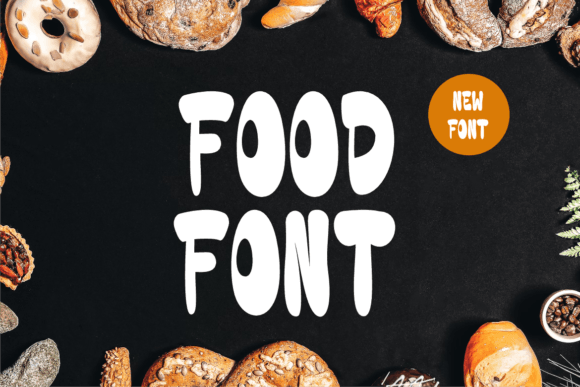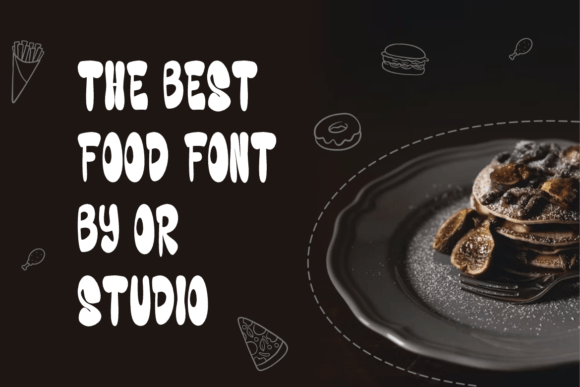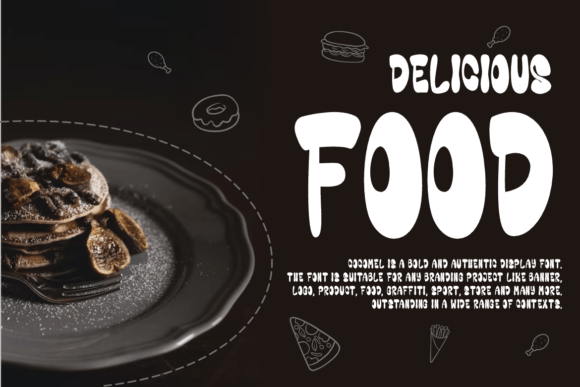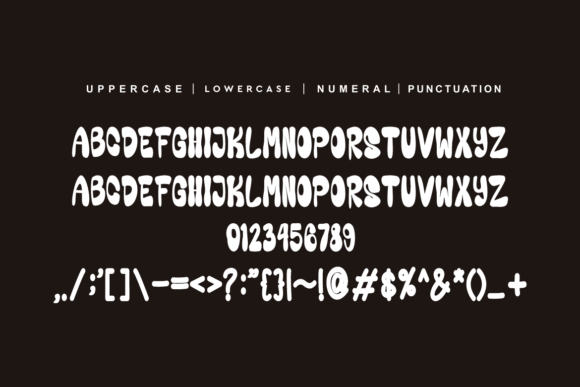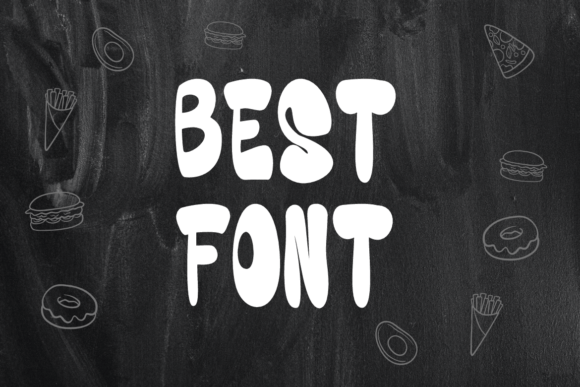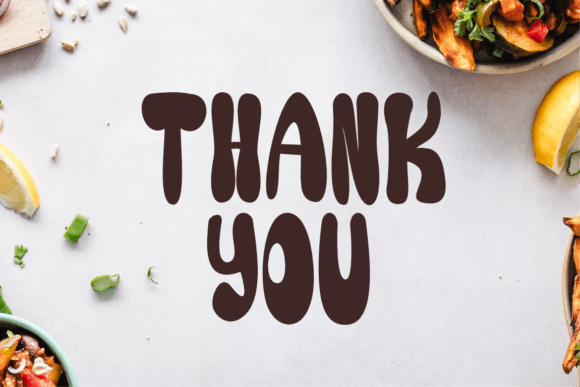
Cocomel Font: Elevate Your Designs with a Stylish and Bold Handwritten Touch
In the world of typography, fonts play a crucial role in conveying the tone and personality of a design. For designers and crafters looking to add a touch of elegance and sophistication to their projects, Cocomel Font is an excellent choice. This gorgeous and bold handwritten font is crafted to give your headlines and logotype projects a stylish touch, making it perfect for a wide range of design applications.
The Characteristics of Cocomel Font
Cocomel Font reads as strong, confident, and dynamic, making it an ideal choice for designers who want to make a statement. Its bold and handwritten style adds a touch of nostalgia to any design, evoking memories of classic typography and elegant script fonts. The font’s unique characteristics make it versatile and suitable for various design projects, from logos and headlines to packaging and branding.
Key Features of Cocomel Font
• Bold and Handwritten Style: Cocomel Font boasts a bold and handwritten style that adds a touch of elegance and sophistication to any design.
• Strong and Confident: The font’s strong and confident appearance makes it perfect for headlines, logotypes, and other design projects where you want to make a statement.
• Nostalgic Character: Cocomel Font’s classic and timeless design adds a touch of nostalgia to any project, making it ideal for designers who want to create a vintage or retro look.
• Versatile and Adaptable: The font’s versatility makes it suitable for a wide range of design applications, from logos and branding to packaging and advertising.
Uses of Cocomel Font
Cocomel Font is a versatile font that can be used in various design projects, including:
• Logos and Branding: The font’s bold and confident style makes it perfect for logos and branding projects where you want to make a statement.
• Headlines and Titles: Cocomel Font’s strong and dynamic appearance makes it ideal for headlines and titles, adding a touch of elegance and sophistication to any design.
• Packaging and Advertising: The font’s nostalgic character and classic design make it suitable for packaging and advertising projects where you want to create a vintage or retro look.
• Stationery and Invitations: Cocomel Font’s elegant and refined style makes it perfect for stationery and invitation designs, adding a touch of sophistication and elegance.
Why Choose Cocomel Font?
With so many fonts available, why choose Cocomel Font? Here are a few reasons why designers and crafters love this gorgeous and bold handwritten font:
• Unique and Distinctive: Cocomel Font’s bold and handwritten style sets it apart from other fonts, making it a great choice for designers who want to create a unique and distinctive look.
• Elegant and Refined: The font’s elegant and refined style makes it perfect for designers who want to add a touch of sophistication and elegance to their designs.
• Easy to Read: Despite its bold style, Cocomel Font is easy to read, making it suitable for a wide range of design applications.
In conclusion, Cocomel Font is a stunning and versatile font that can elevate your designs with its stylish and bold handwritten touch. Its strong and confident appearance, nostalgic character, and classic design make it perfect for a wide range of design applications. Whether you’re a designer or crafter looking to add a touch of elegance and sophistication to your projects, Cocomel Font is an excellent choice.